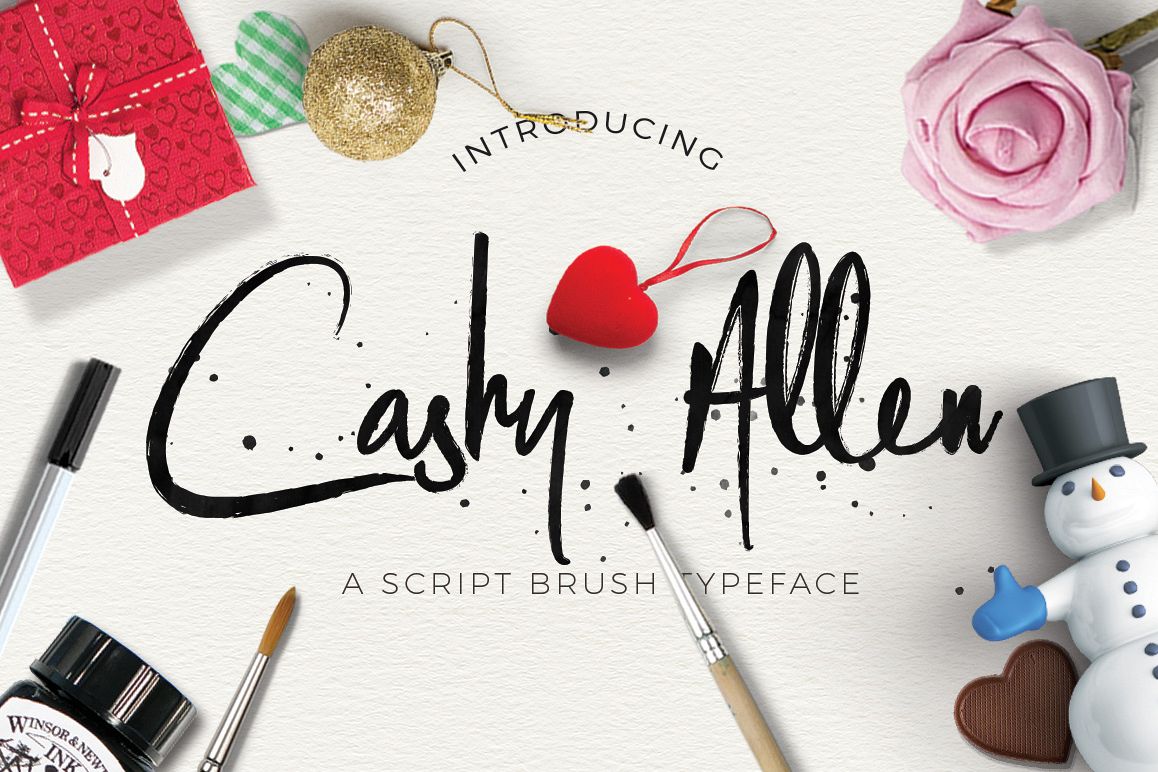
Cashy Allen Typeface
Introducing "Cashy Allen Script Brush Typeface"
Can be used for various purposes namely headings, logos, wedding invitations, t-shirts, letterheads, signages, labels, news, posters, badges etc.
Features:
• Uppercase
• Lowercase
• Ligatures
• Numeral & Punctuations (Open Type Standard)